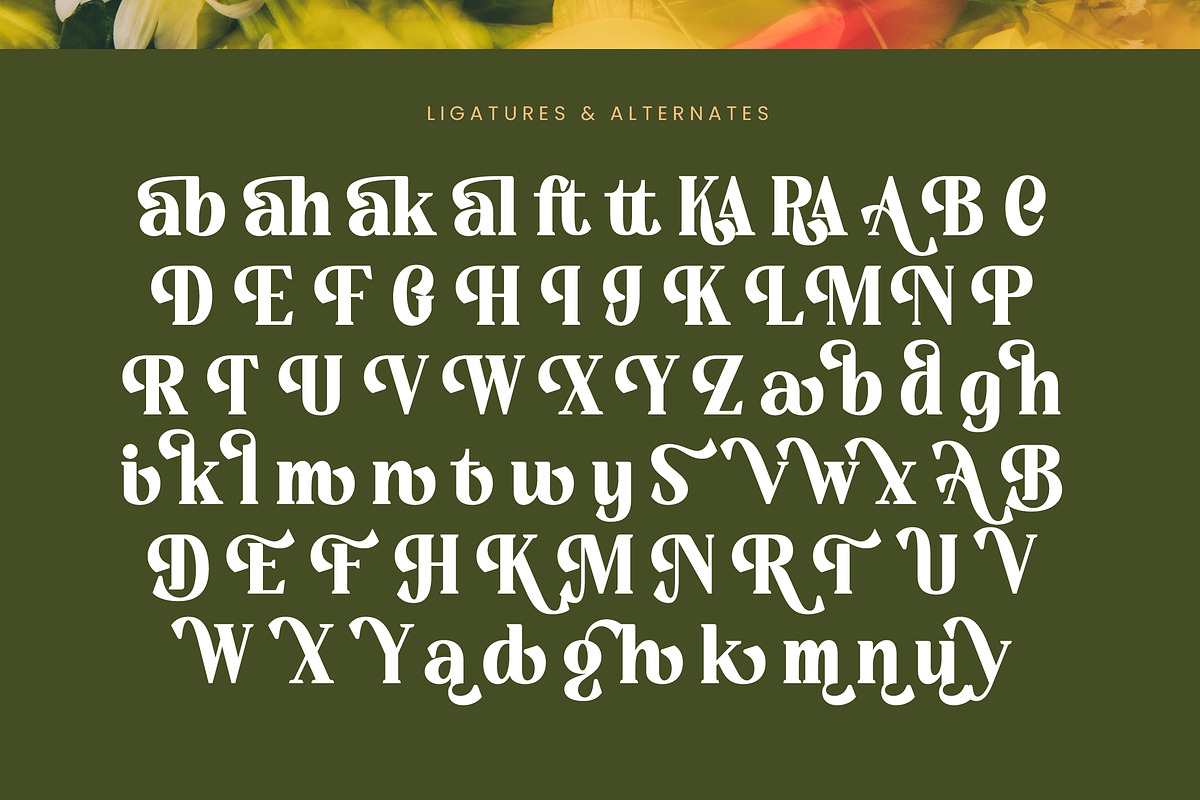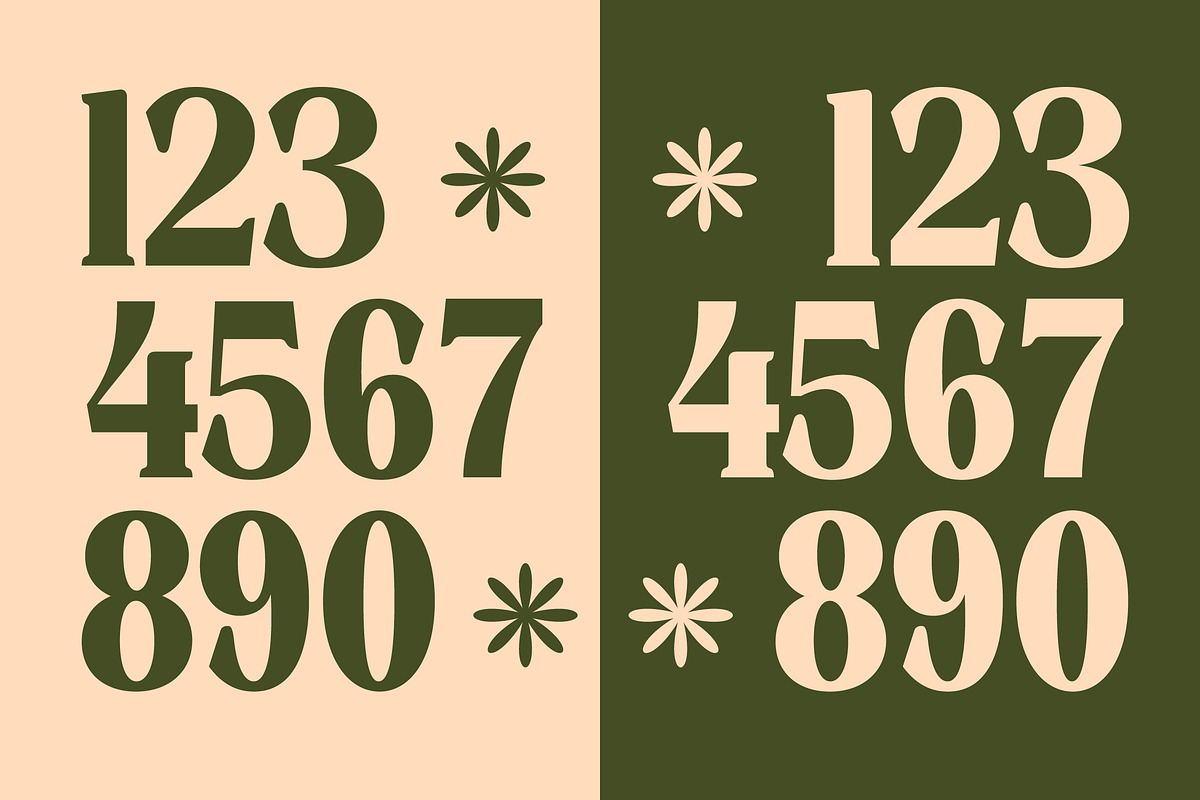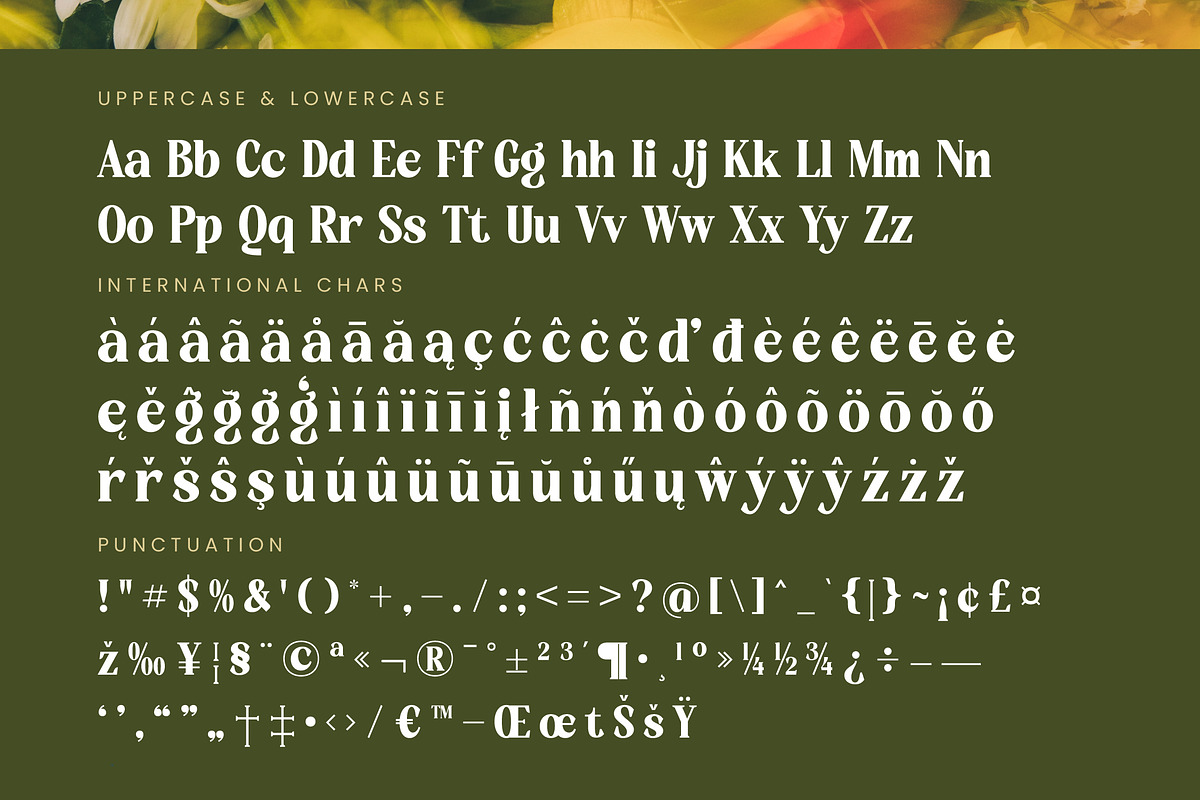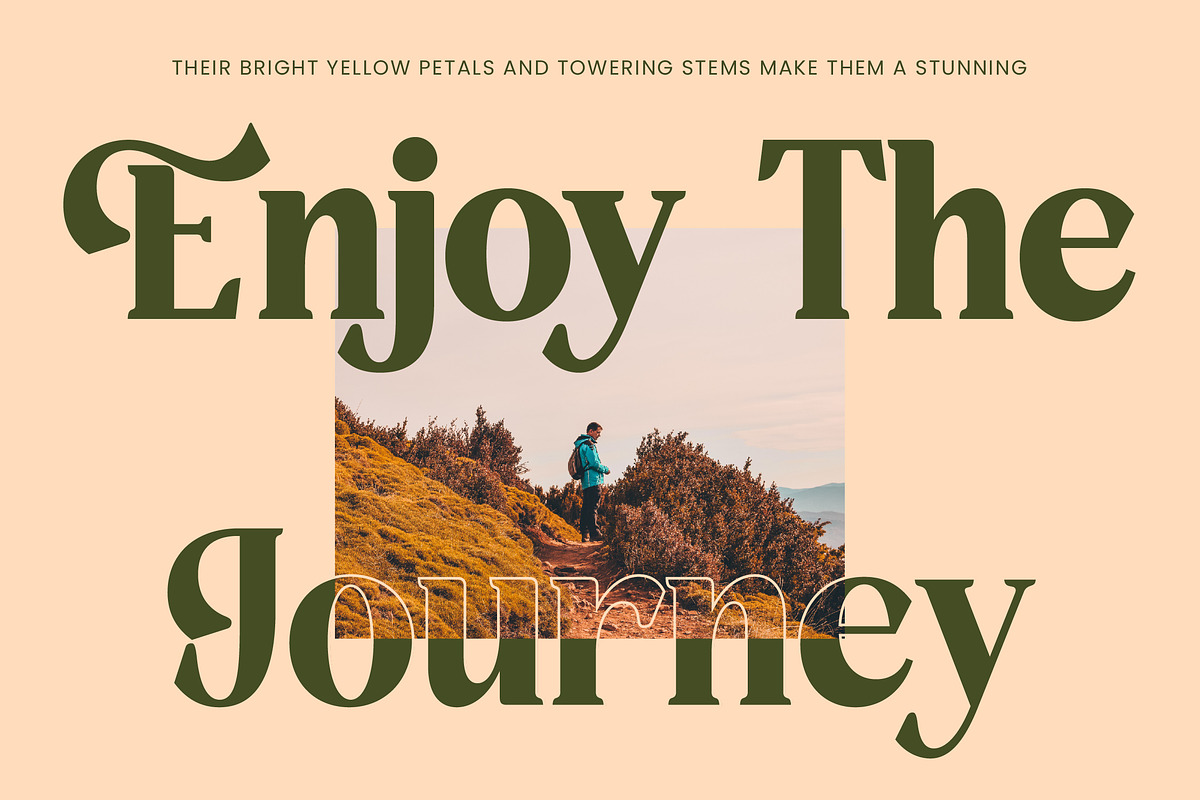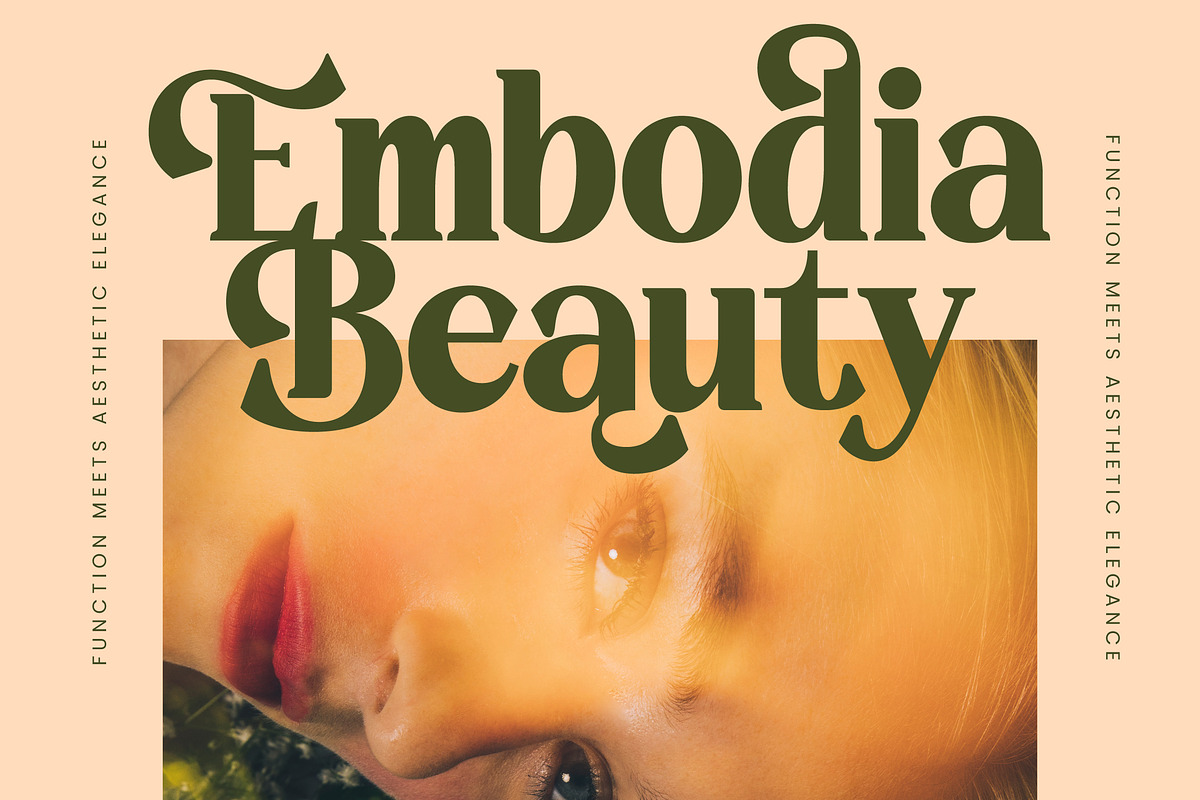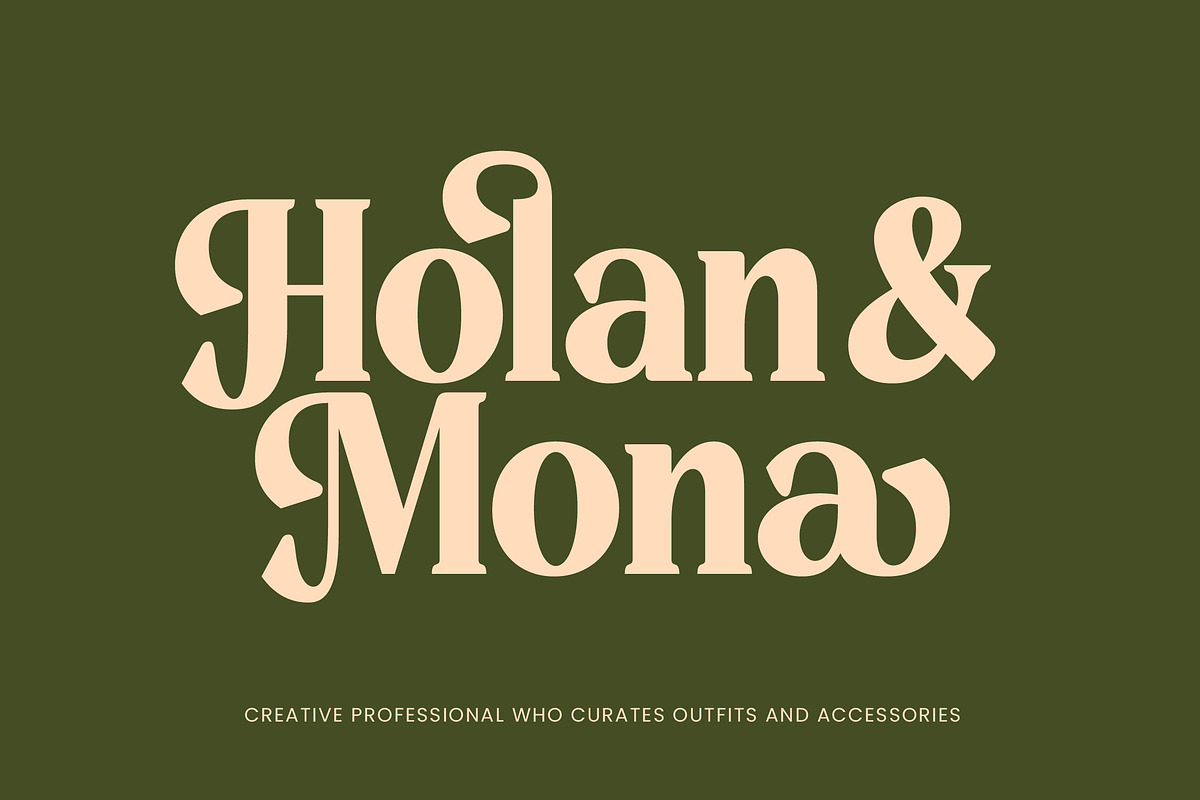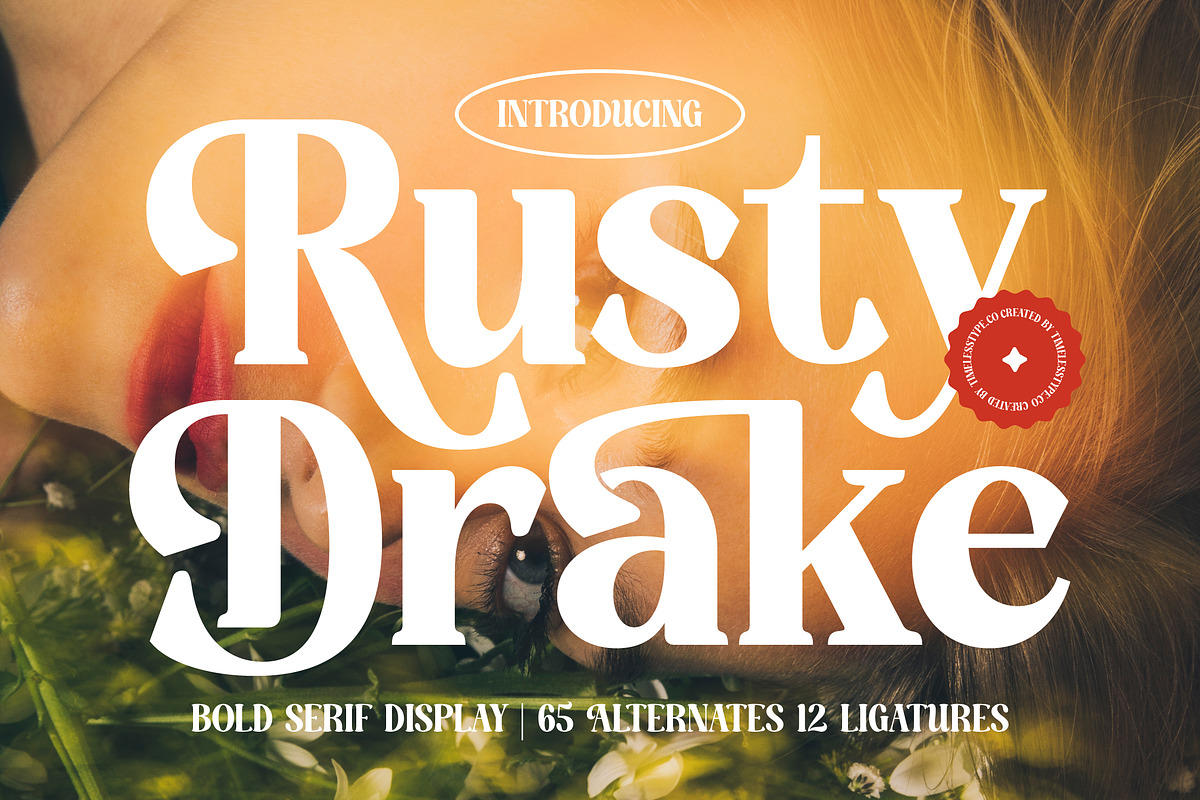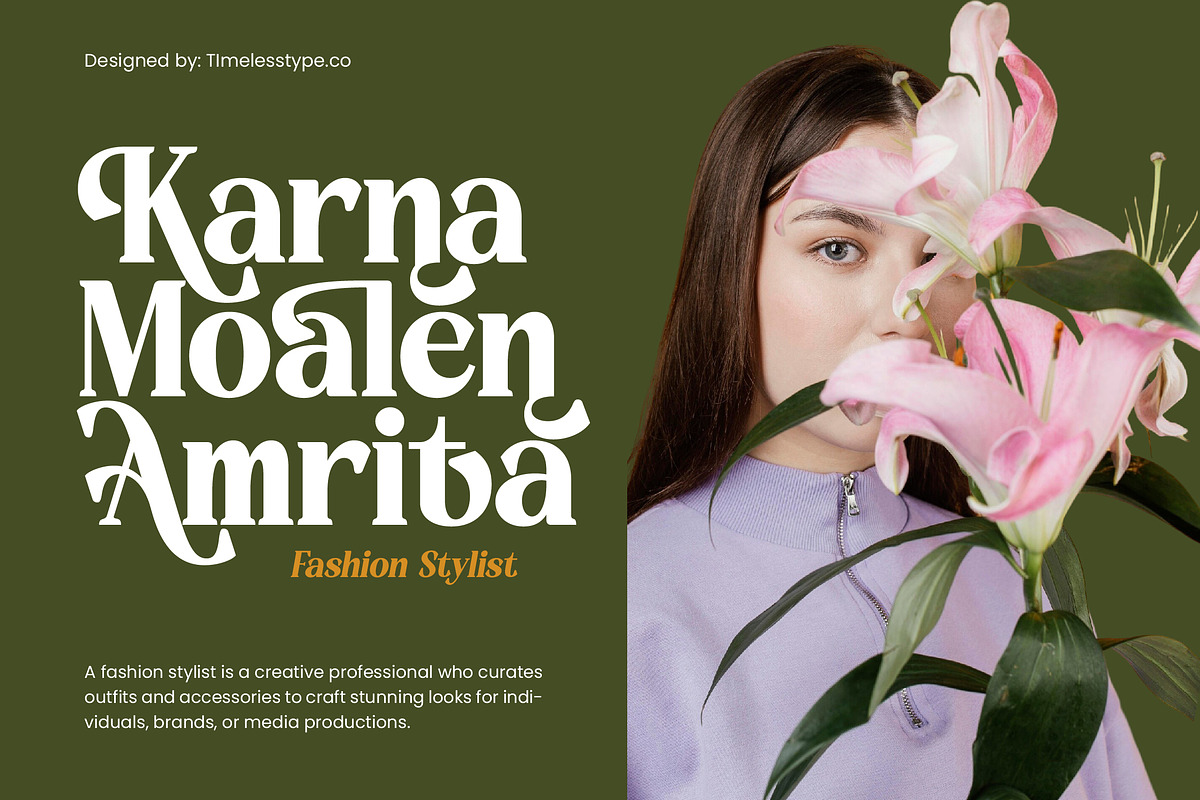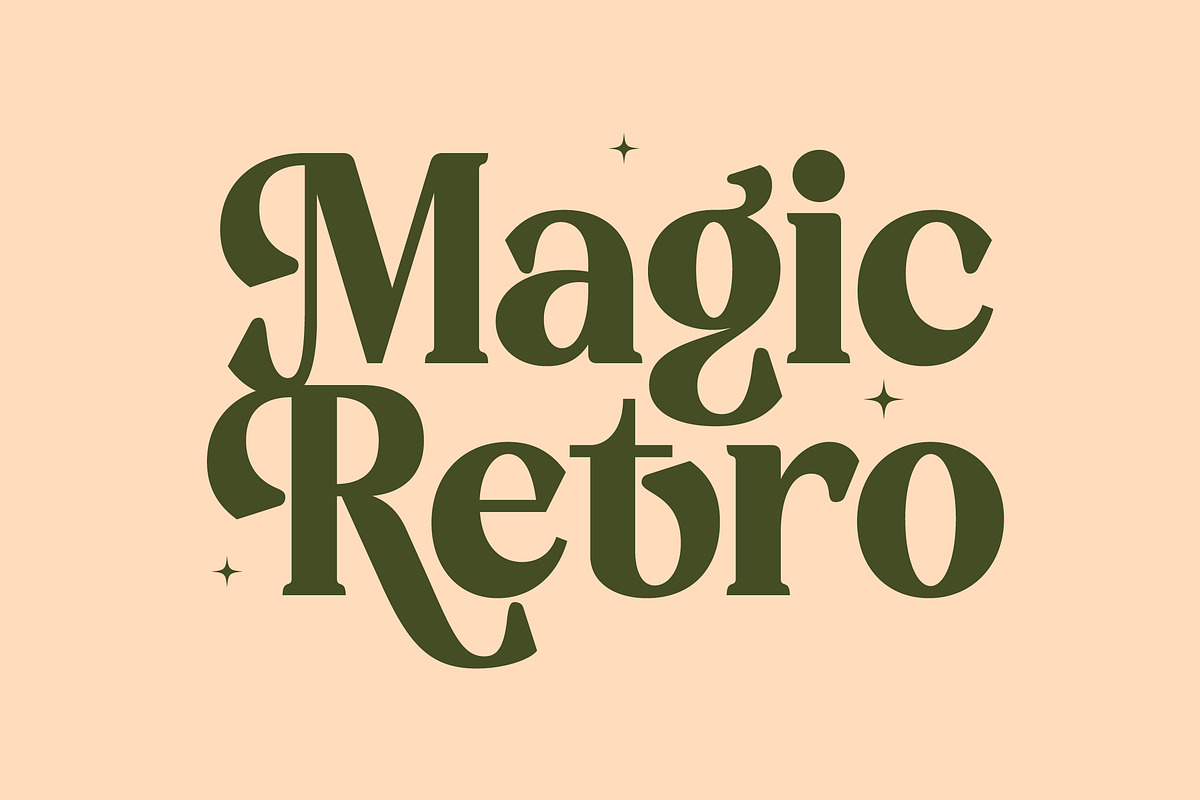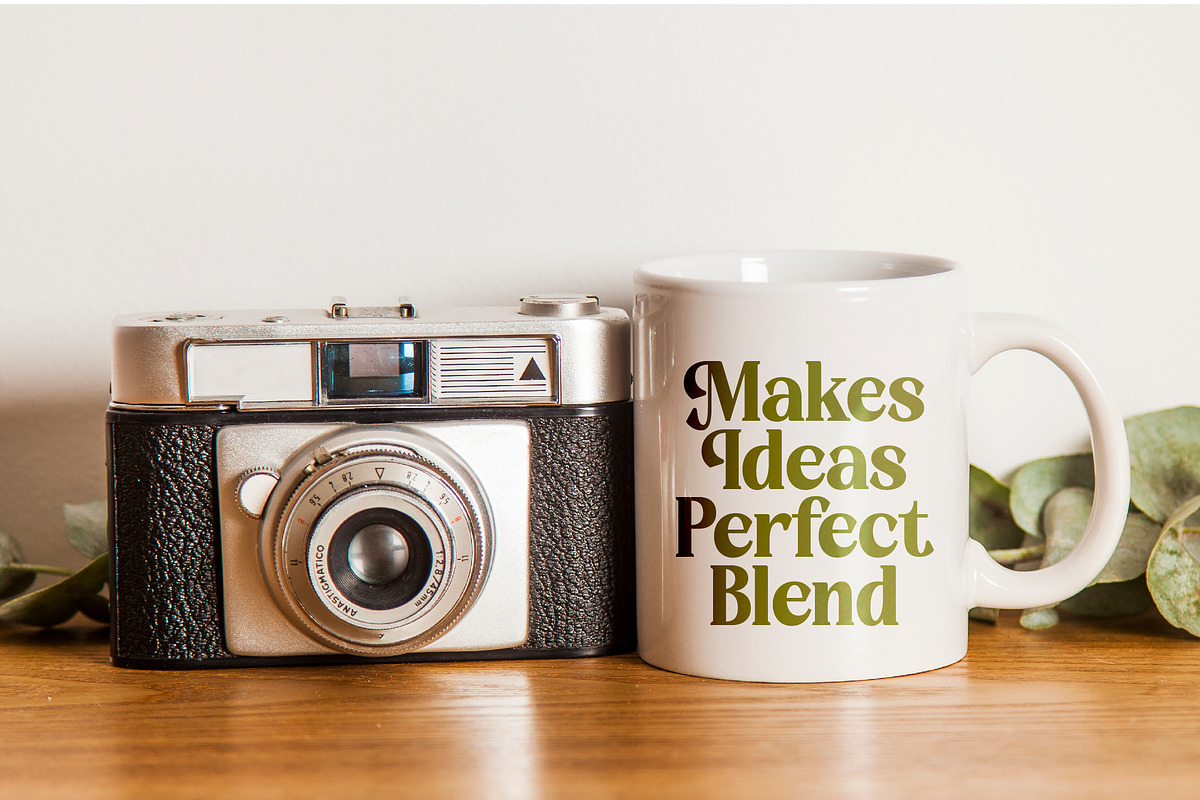
Rusty Drake Bold Serif Display
Rusty Drake is an exquisite visual masterpiece that blends the strength of a bold display face with the delicate grace of organic curves. This font is designed to turn every headline into a work of art, offering a sophisticated warmth that is rarely found in traditional serifs.
Drawing inspiration from the fluid movements of nature and the golden era of editorial layouts, the font evokes a sun-drenched, nostalgic atmosphere. It captures a sense of timeless elegance, bridging the gap between historical craftsmanship and contemporary aesthetic sensibilities.
With its modern serif display aesthetics and luxury typography appeal, this high-contrast serif delivers an unmatched branding impact. It functions perfectly as a premium editorial font, offering a rhythmic flow and heavy weights that command the reader's attention instantly.
Aligning perfectly with the current modern serif trend, this typeface meets the rising demand for editorial display fonts that feel personal and artisanal. Its character-driven typography ensures that your creative projects stand out in a crowded market by offering a unique and memorable visual identity.
This versatile typeface is the premier choice for high-end logo design, cohesive branding systems, and upscale editorial spreads. Whether you are crafting luxury packaging, a bespoke wedding invitation, or a cutting-edge fashion lookbook, it provides an elevated touch of class.
To unlock your full creative potential, the package includes over 65 alternates and 12 unique ligatures for custom lettering effects. The set is completed with comprehensive multilingual support and international characters, making it a global solution for high-impact design.
- Ligature 12 Alternate 65